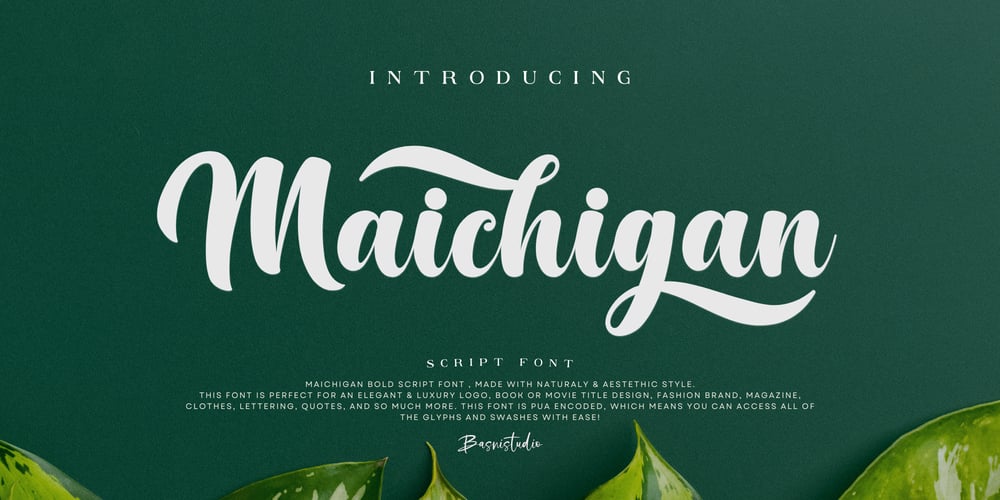
Maichigan Font Family was designed by Bery Arisandi and published by Basnistudio. Maichigan contains 1 styles and family package options. Introducing Maichigan Bold Script Font, made with Naturaly & Aestethics Style.This Font is perfect for an elegant & luxury logo, book or movie title design, fashion brand, magazine, clothes, lettering, quotes, and so much more. This font is PUA encoded, which means you can access all of the glyphs and swashes with ease!What’s include: Maichigan Bold Script Font Swashes Alternates Ligatures Multilingual Support ( Support for 90 languages ) Thank You Very Much